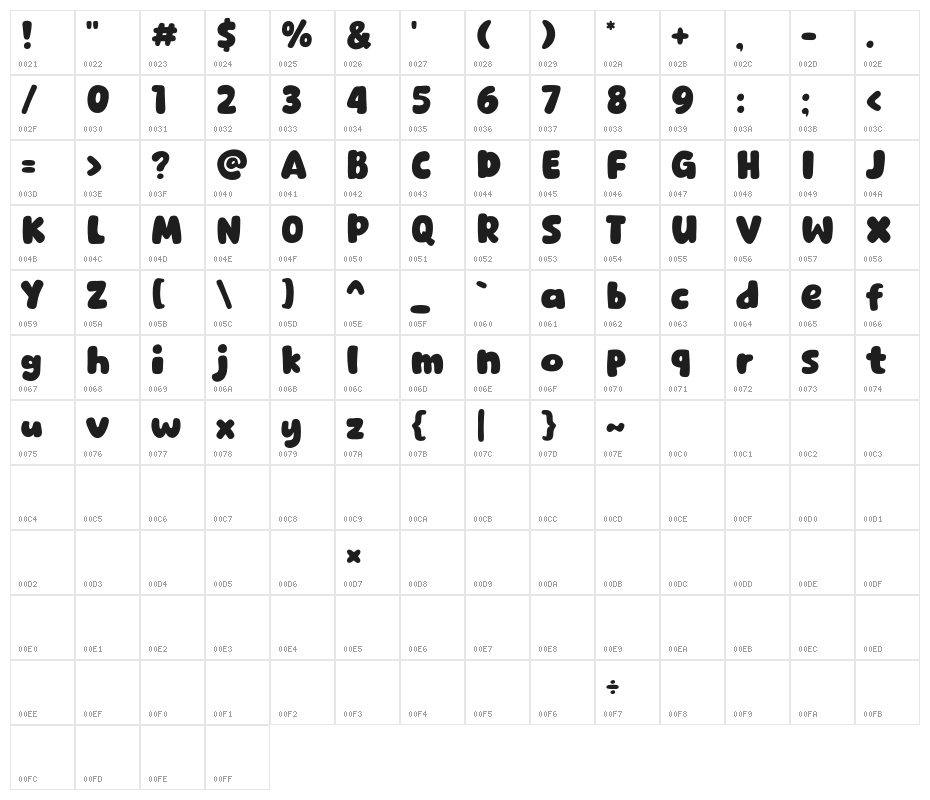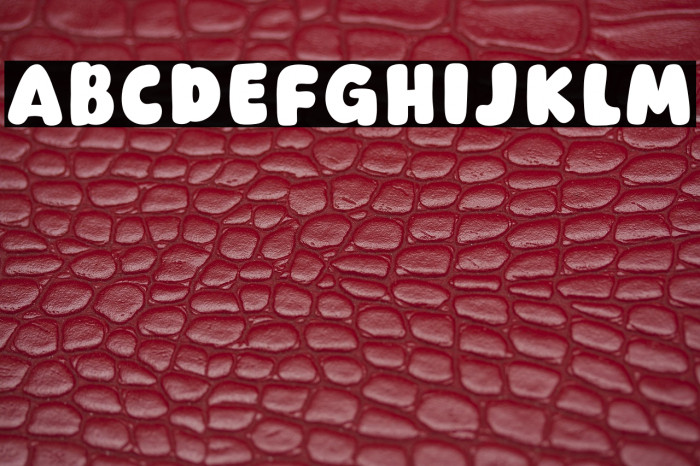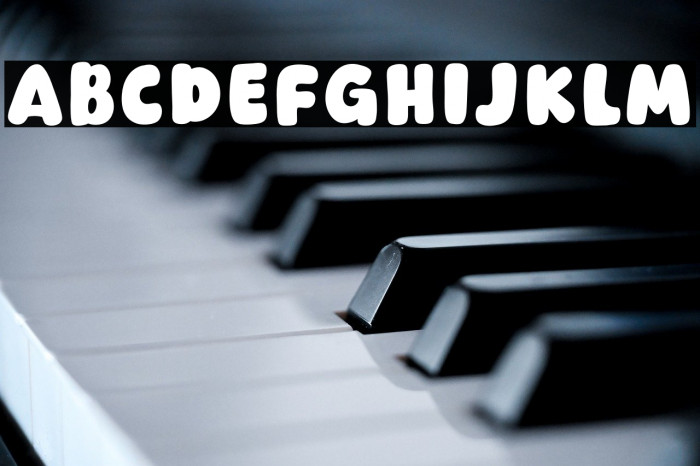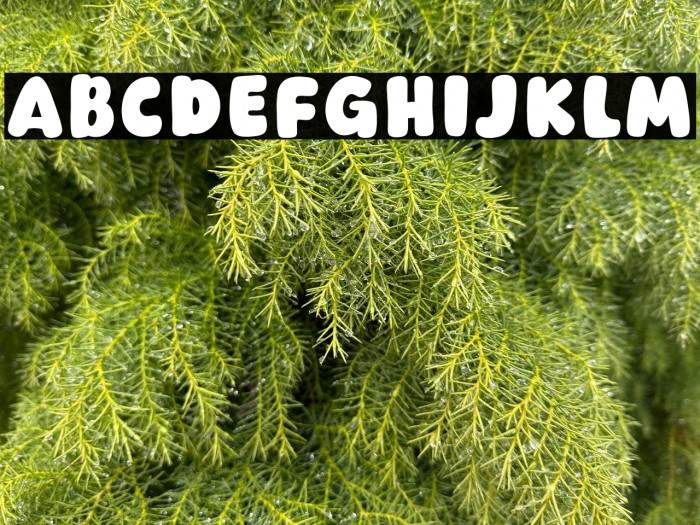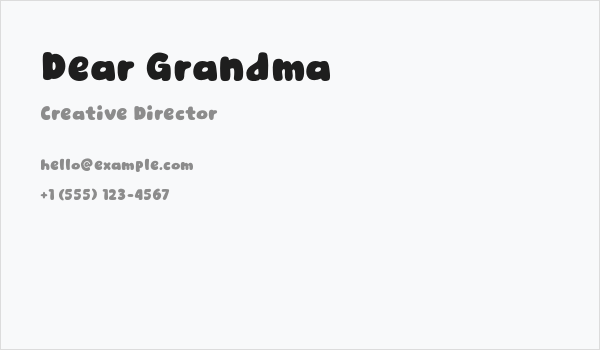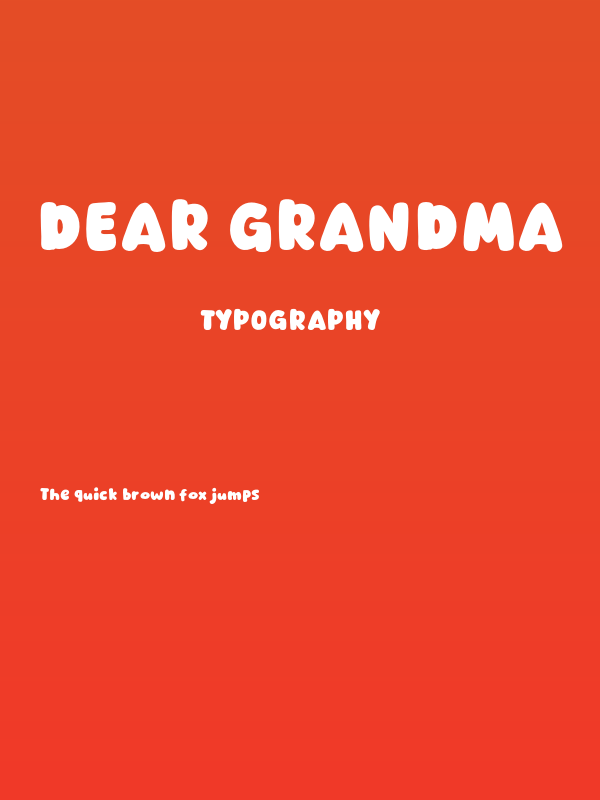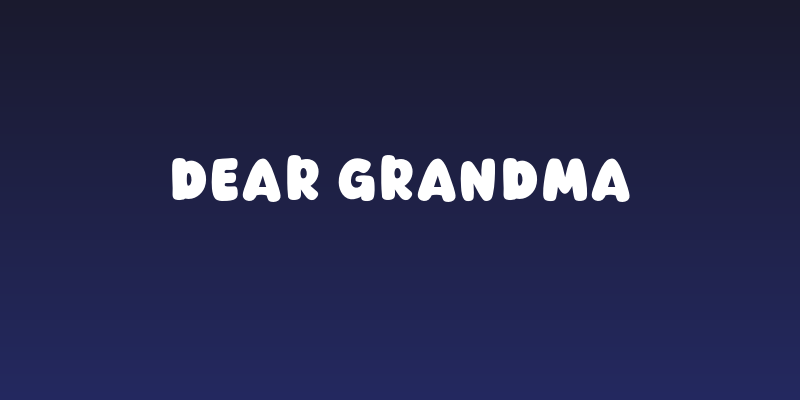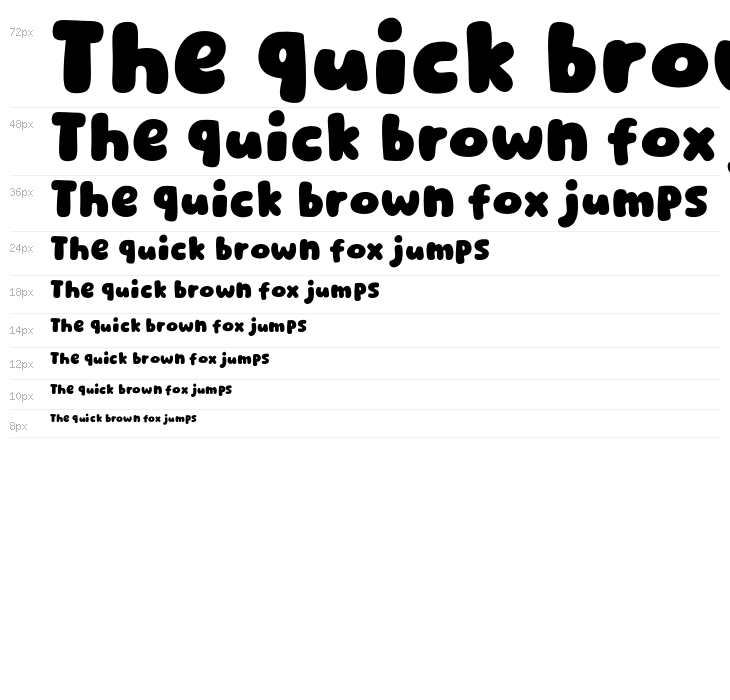
Dear Grandma Font
Dear Grandma Description
This playful and bold typeface features rounded, bubbly characters that convey a sense of fun and approachability. The letters are thick and have a uniform stroke width, giving them a cartoonish and friendly appearance. The font includes both uppercase and lowercase letters, as well as numbers and a variety of special characters. Its rounded edges and consistent weight make it ideal for designs that aim to be informal and engaging. The overall style is reminiscent of hand-drawn lettering, adding a personal touch to any project.
| Overall Style | Playful, Cartoonish |
| Proposed Projects | Ideal for children's books, playful branding, greeting cards, and casual posters. |